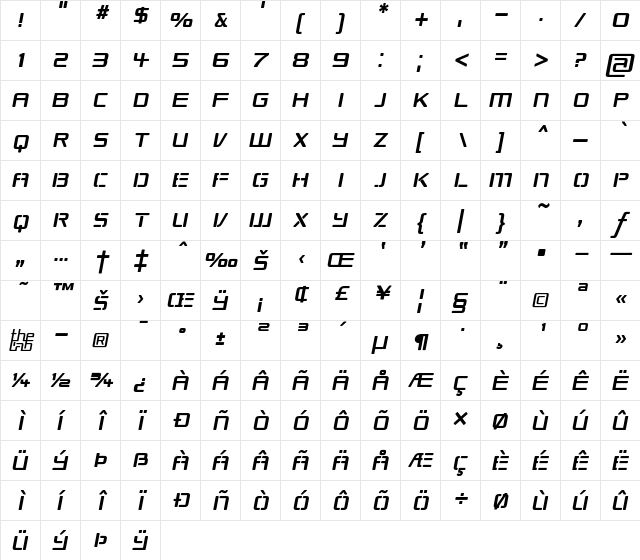
Republikaps Italic
Design Context for Republikaps Typeface
Republikaps offers clean, dependable letterforms without strong stylistic allegiance, making it a practical choice for designers who need flexibility. Its italic angle brings a sense of urgency and motion to the letterforms.
Pro Tip: Use Republikaps for emphasis, pull quotes, and subheadings where its slanted energy can add rhythm to the layout.